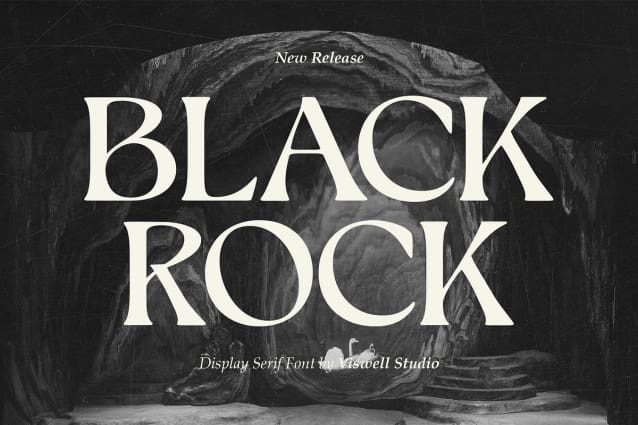
Black Rock Font
Black Rock Font is a bold and elegant display serif font designed to make a lasting impression with its timeless sophistication. Inspired by the rugged beauty of natural stone formations, it combines sharp angles and graceful curves to create a perfect balance of strength and refinement. Ideal for branding, editorial projects, logos, packaging, and expressive typographic compositions, Black Rock brings versatility and style to any design. Its dynamic presence ensures your work stands out effortlessly, making it the perfect choice for creative projects that demand both character and clarity.